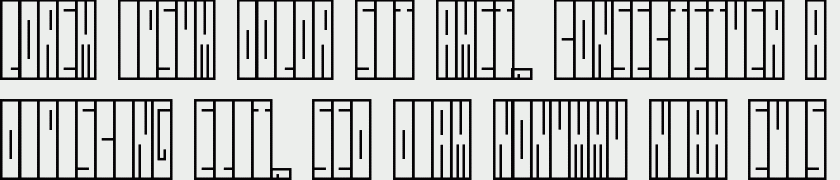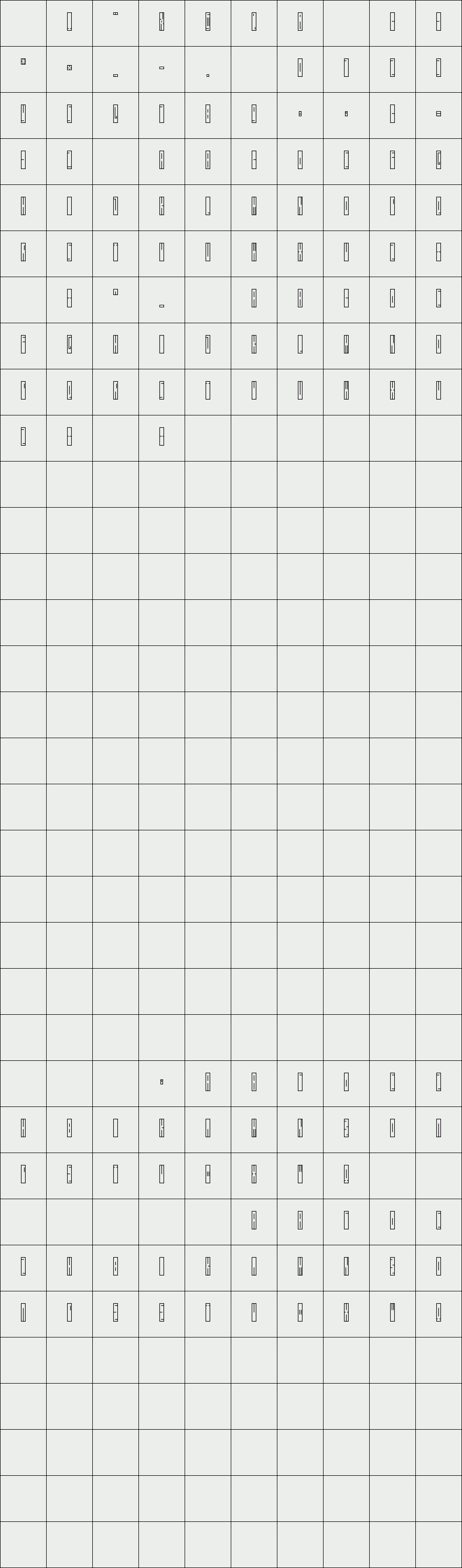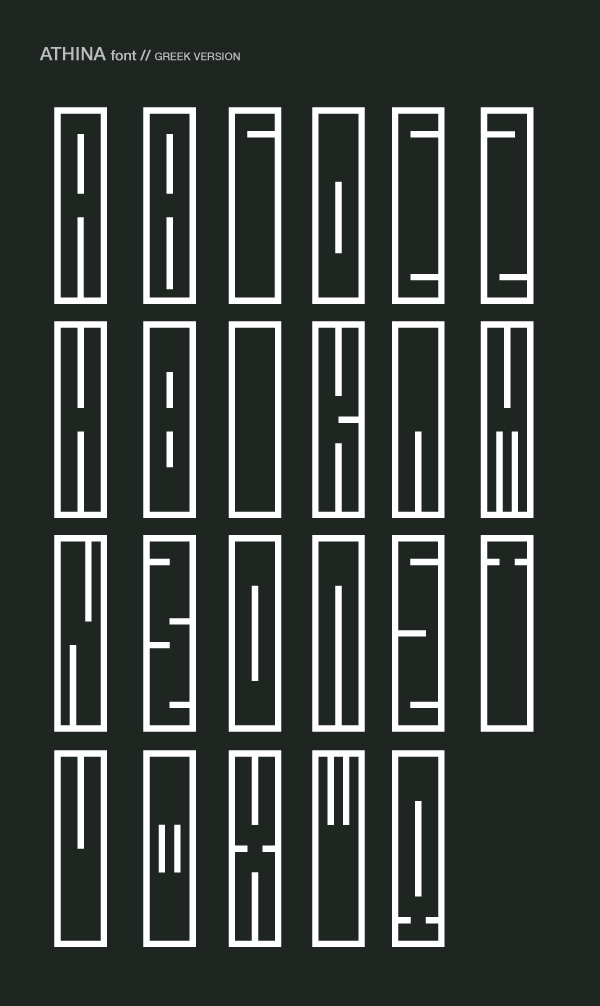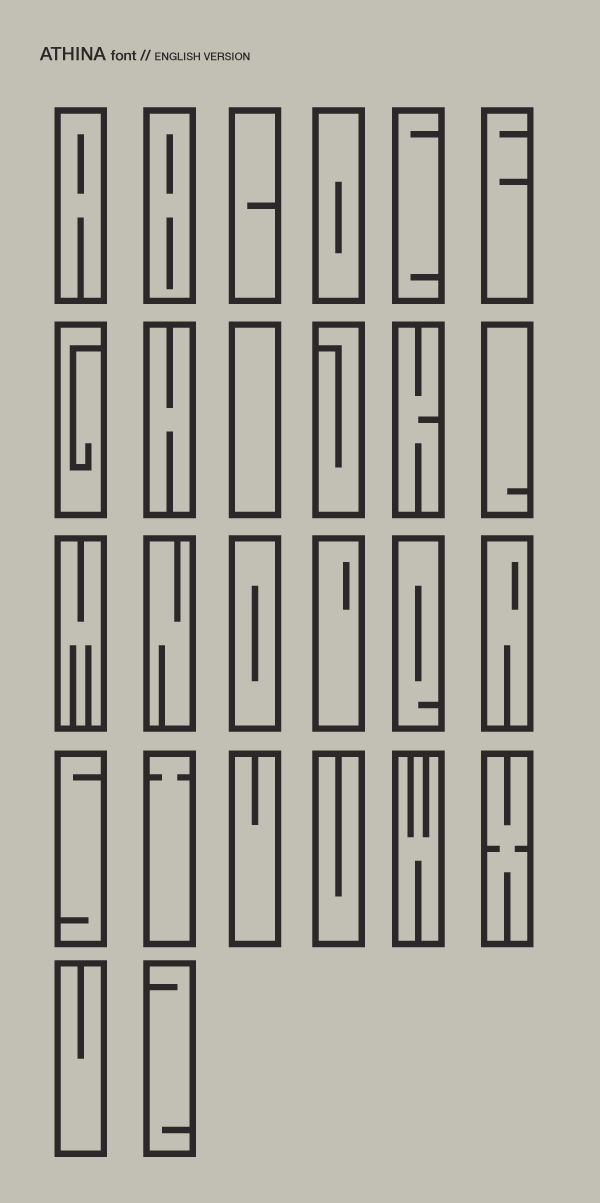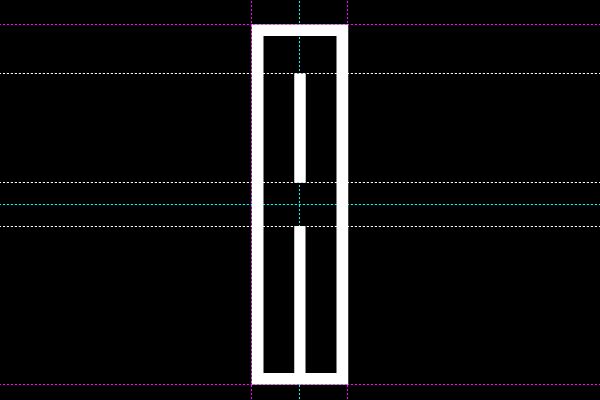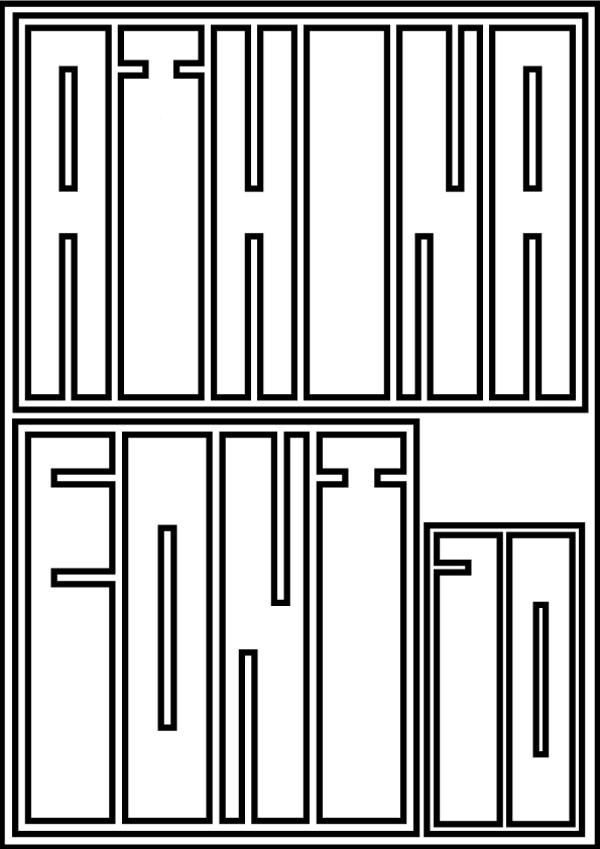
Athina
Athina Font is an experimental font, inspired from Athens street art. Shapes with no spaces is the basic characteristic of Athina Font. It was designed for the English and Greek language.